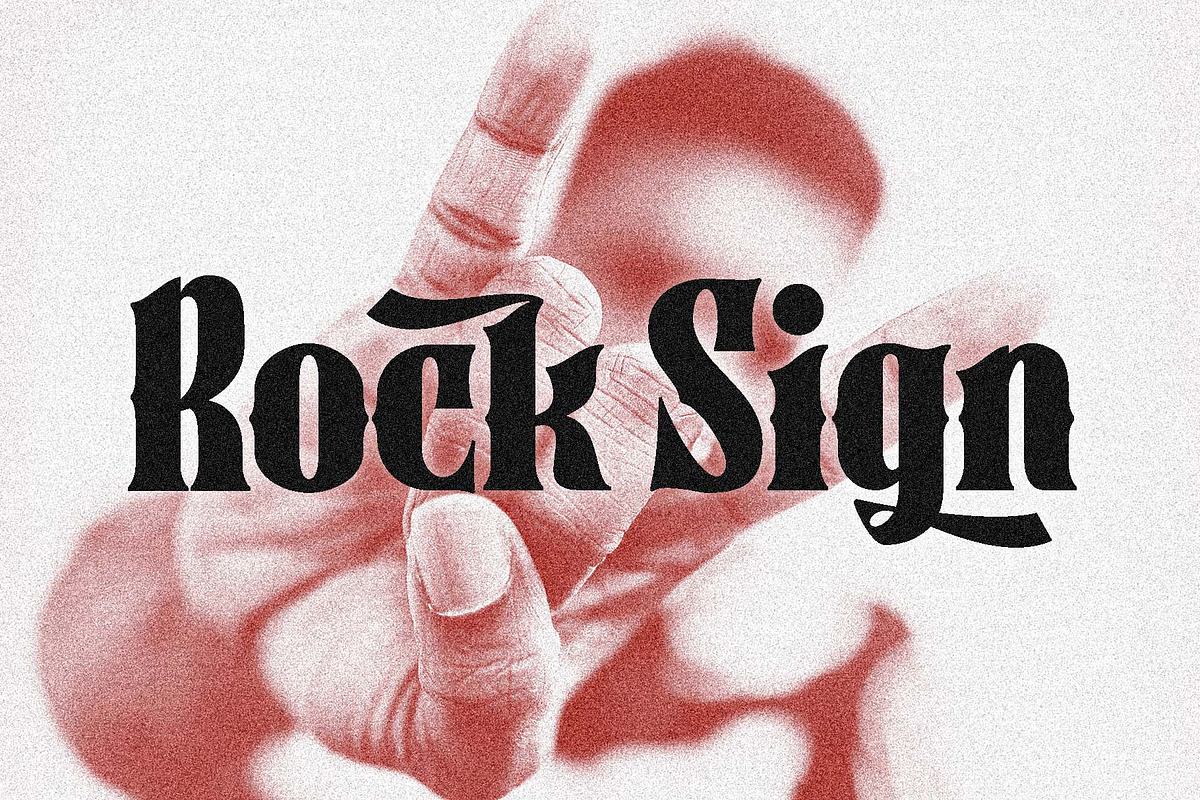
Rock Sign Typeface Free Download is a bold and dynamic typeface inspired by the rebellious spirit of rock 'n' roll. With its strong, angular shapes, distressed textures, and rugged edges, this font is perfect for music posters, band logos, album covers, and any project that needs a bold, edgy, and expressive vibe.
The rugged design of Rock Sign captures the essence of vintage rock graphics while offering modern usability, making it ideal for branding, merchandise, event promotions, and creative designs that want to make a statement.
Amplify your designs with the powerful, rebellious energy of Rock Sign! 🎸🔥